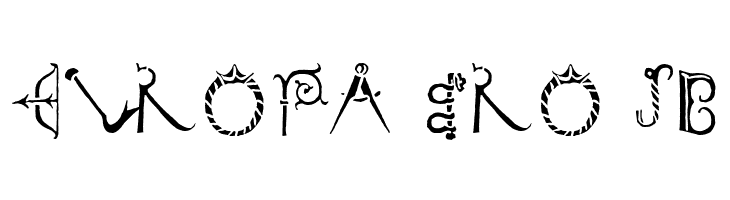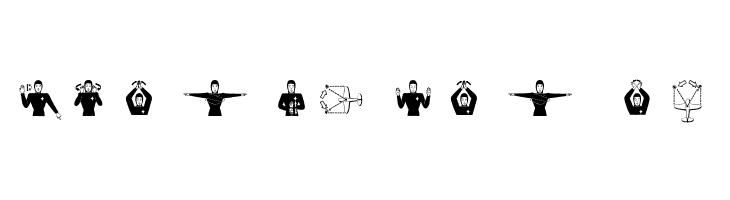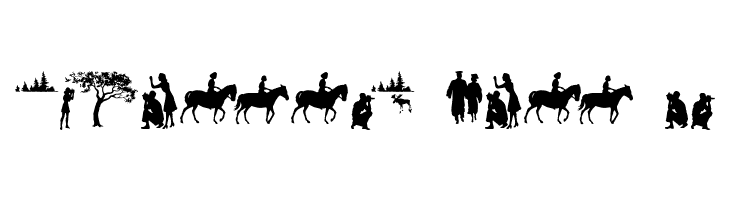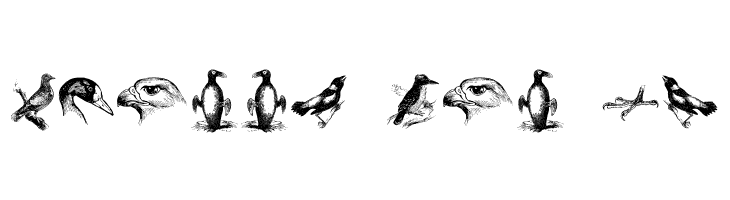
A decorative font inspired by everyday tools, featuring intricate and playful designs.
A decorative font with stylized human figures in various playful poses.
A pictorial silhouette font with narrative scenes for each character.
A decorative, bird-themed illustrative font.